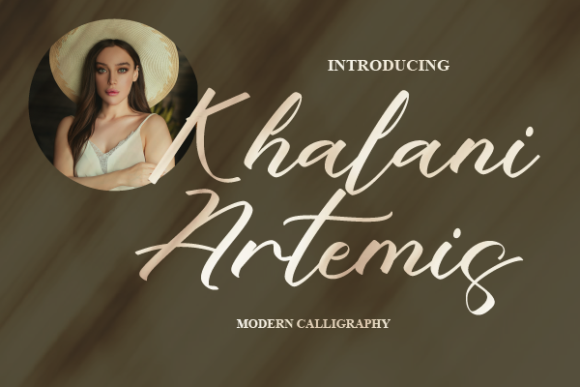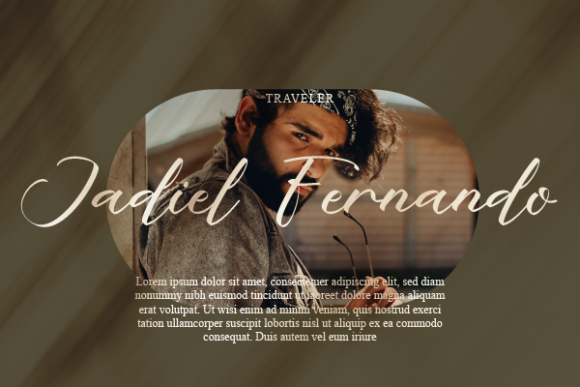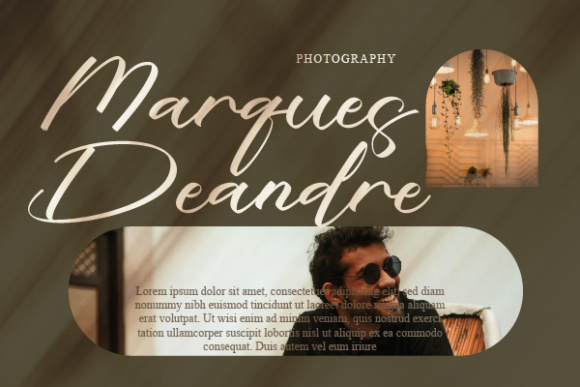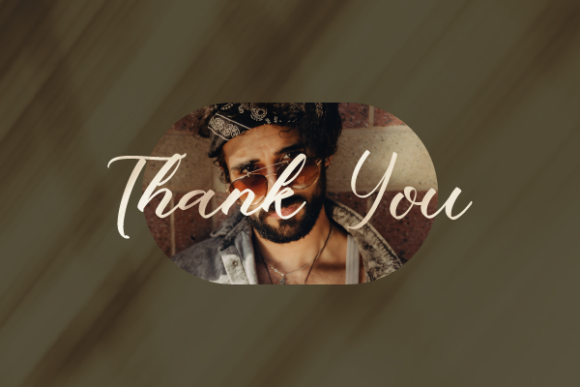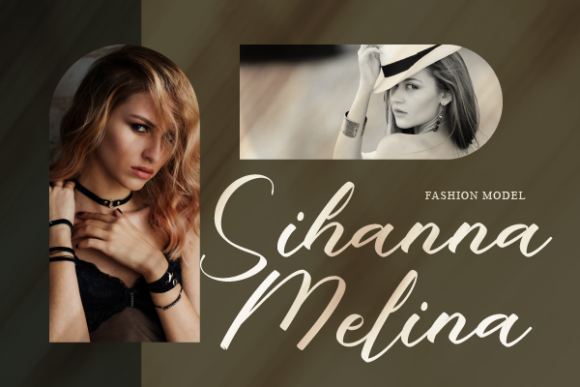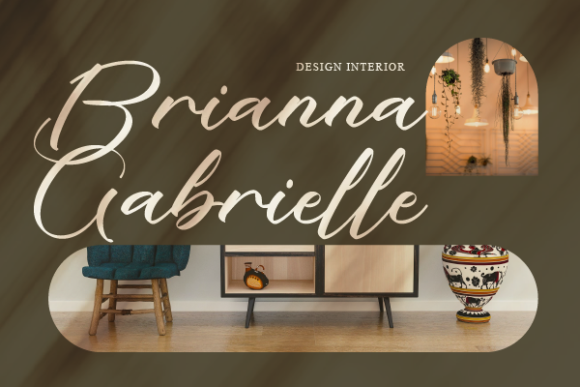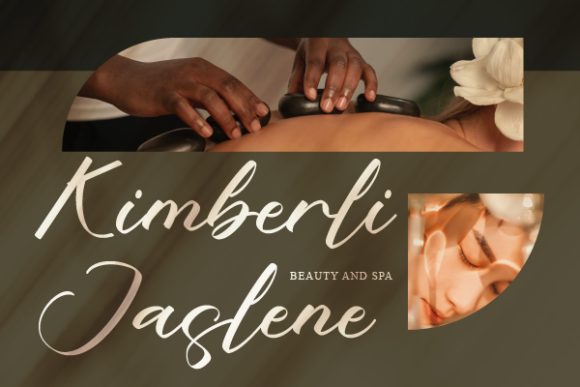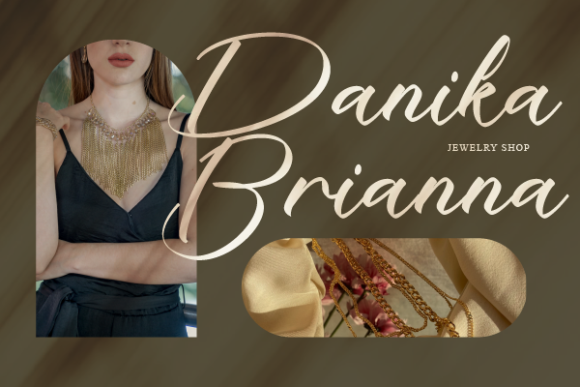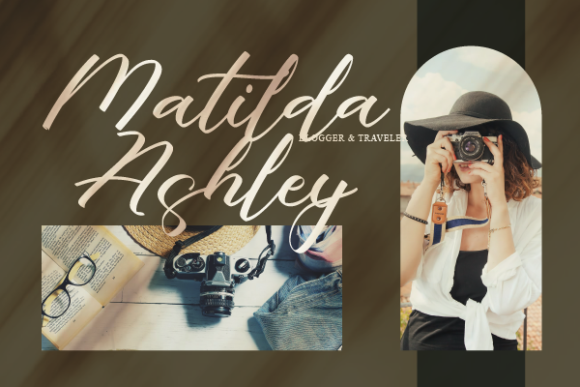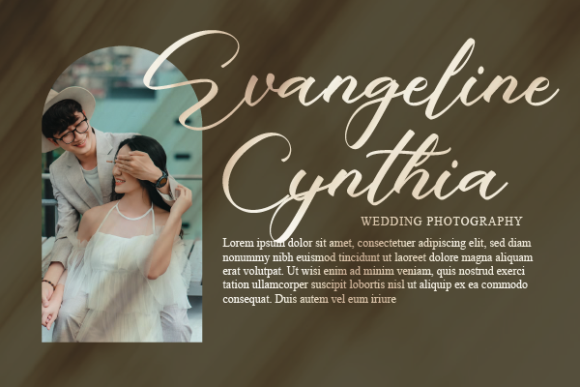
Khalani Artemis Font
About Khalani Artemis Font
Khalani Artemis, a sweet handwritten font, boasts elegant and curvy lines that elevate your work with a touch of sophistication. Ideal for a spectrum of applications, this font shines in product packaging, branding projects, magazine covers, social media graphics, wedding materials, and beyond. Its graceful script adds a distinctive charm, ensuring your content stands out and leaves a lasting impression.
In product packaging, Khalani Artemis lends a stylish and personalized touch, enhancing the visual appeal of your products. Its elegant lines contribute to a sense of refinement, making it an excellent choice for items that require a touch of sophistication.
For branding projects, this handwritten font brings a unique and memorable quality to your logo or identity. Its curvy lines convey a sense of warmth and creativity, making it well-suited for brands that aim to connect with their audience on a personal level.
Magazine covers benefit from Khalani Artemis’ eye-catching and elegant design, creating a harmonious balance between readability and visual allure. The font’s versatility extends to social media, where it can be used to craft engaging and stylish graphics that capture attention across various platforms.
In wedding materials, Khalani Artemis becomes a romantic and enchanting choice, enhancing invitations, place cards, and other elements of the celebration. Its sweet handwritten style adds a personal and intimate feel to these special occasions.
Moreover, the font proves valuable when used as text overlays above backgrounds, allowing for expressive and artistic designs in a variety of contexts.
In summary, Khalani Artemis transcends being just a font; it’s a design element that brings elegance and charm to your work. Its suitability for diverse applications makes it a versatile choice for designers looking to infuse their projects with a delightful and sophisticated handwritten touch.